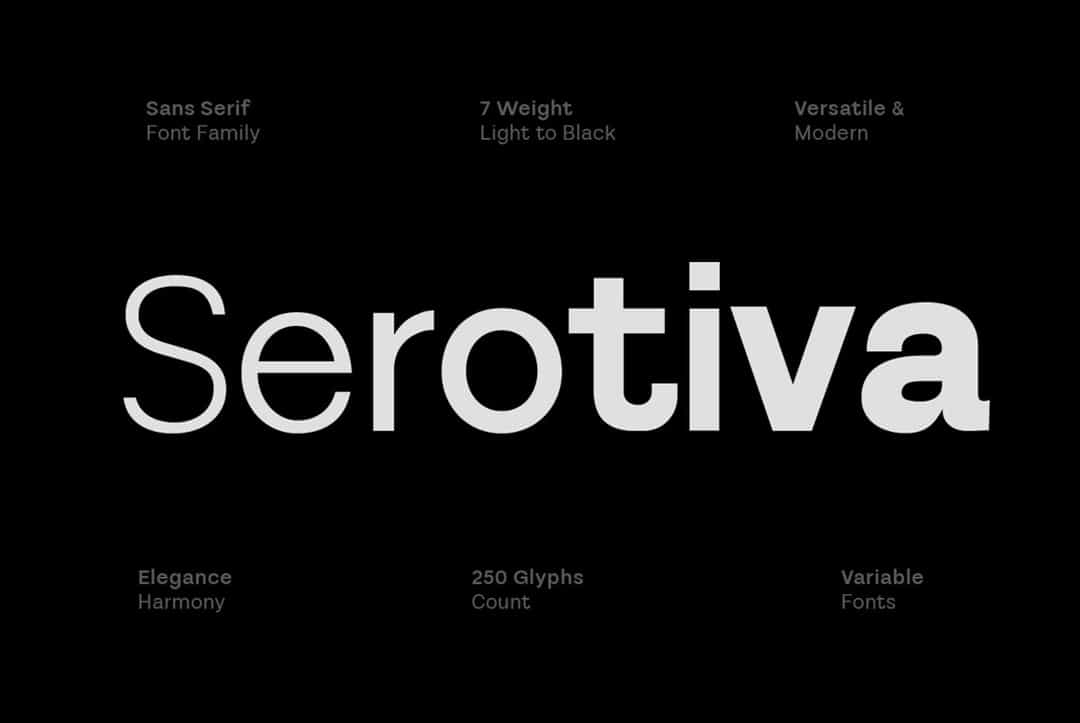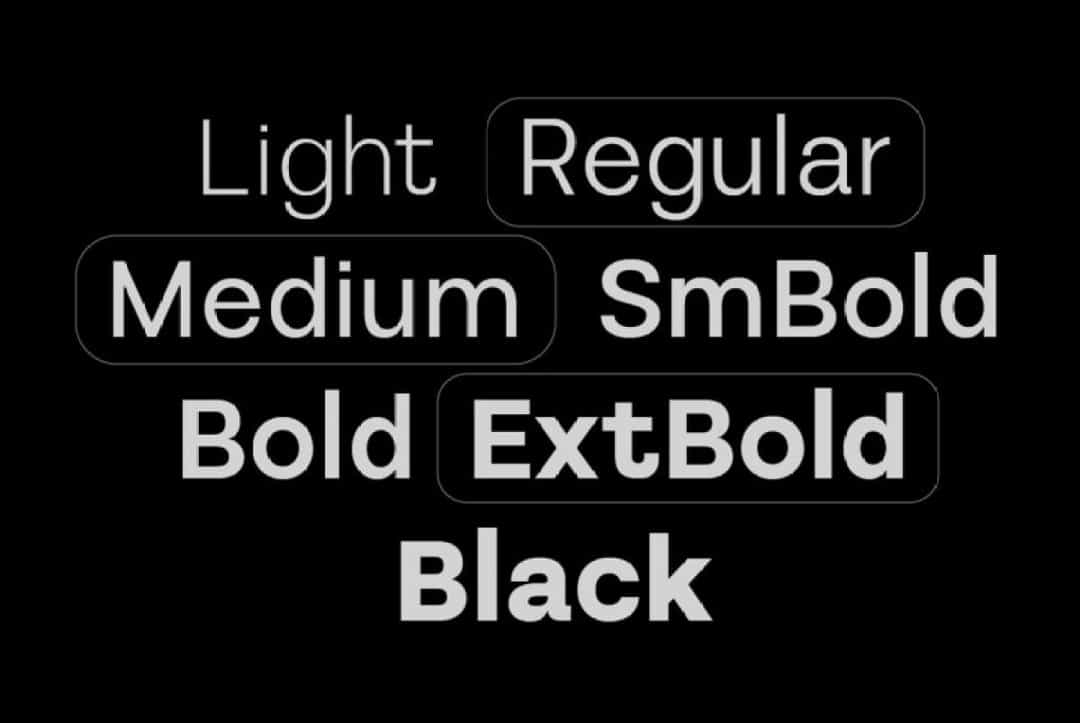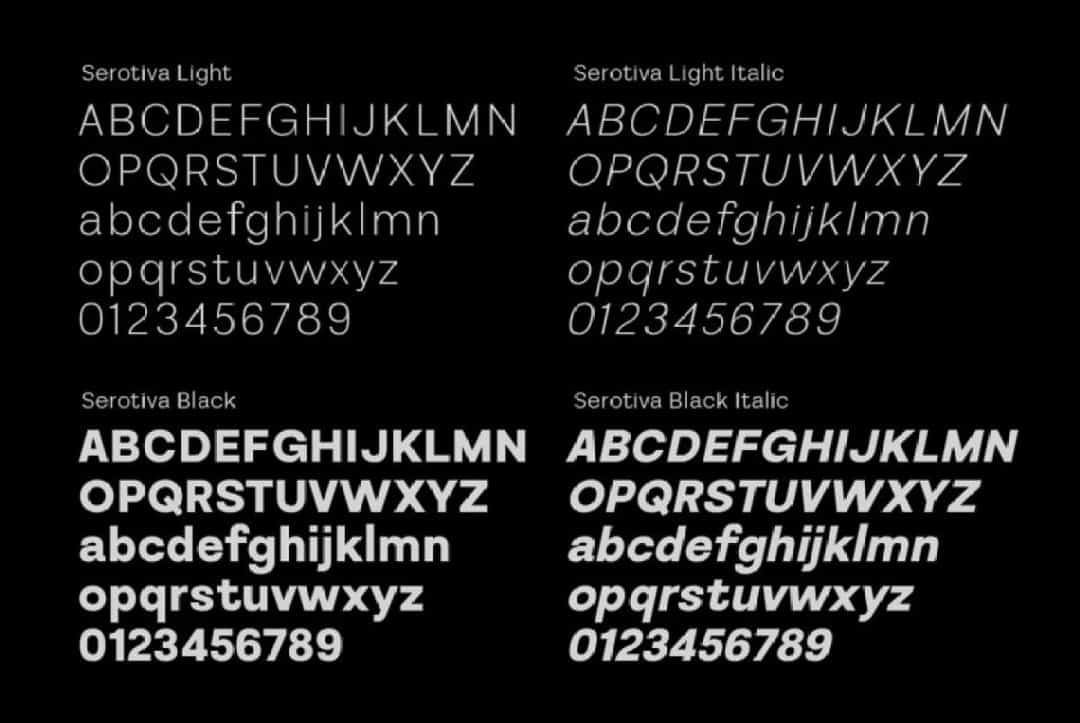
Serotiva font is characterized by its subtle modern design A perfect option with a variety of design projects. is the first impression that you make in this plain elegant font not only easy to read and gloase It lacks any elaborate twirls, looks dignified. But also because of its smooth cleanness your certain youre getting that unpretentious business–like feel.